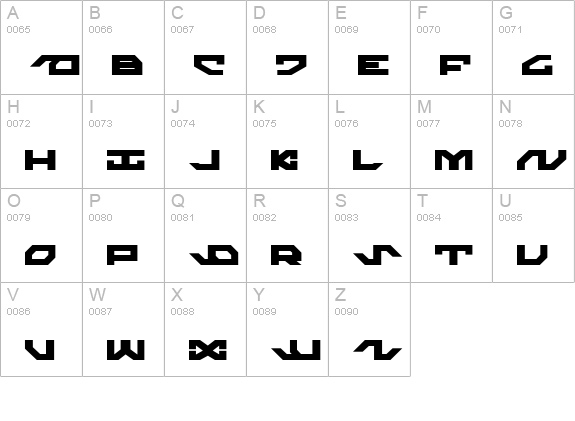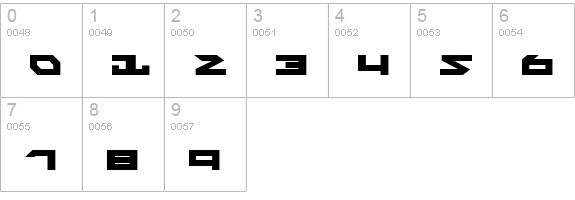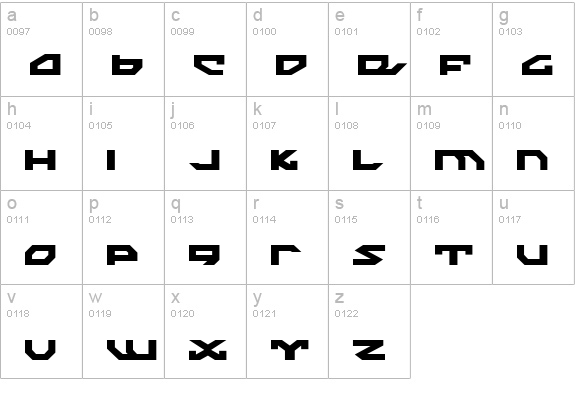
Nightrunner Font Details
Nightrunner font is a sleek and modern typeface that exudes sophistication and elegance. Its bold and dynamic letterforms make a powerful statement, perfect for any design project that requires a touch of contemporary flair. With its sleek lines and sharp edges, Nightrunner font is sure to capture attention and leave a lasting impression. The best part? Nightrunner font is completely free to download at FontsMarket.com. That's right, you can add this stunning typeface to your collection without spending a dime. So why wait? Elevate your designs with Nightrunner font today and watch your creativity soar to new heights.